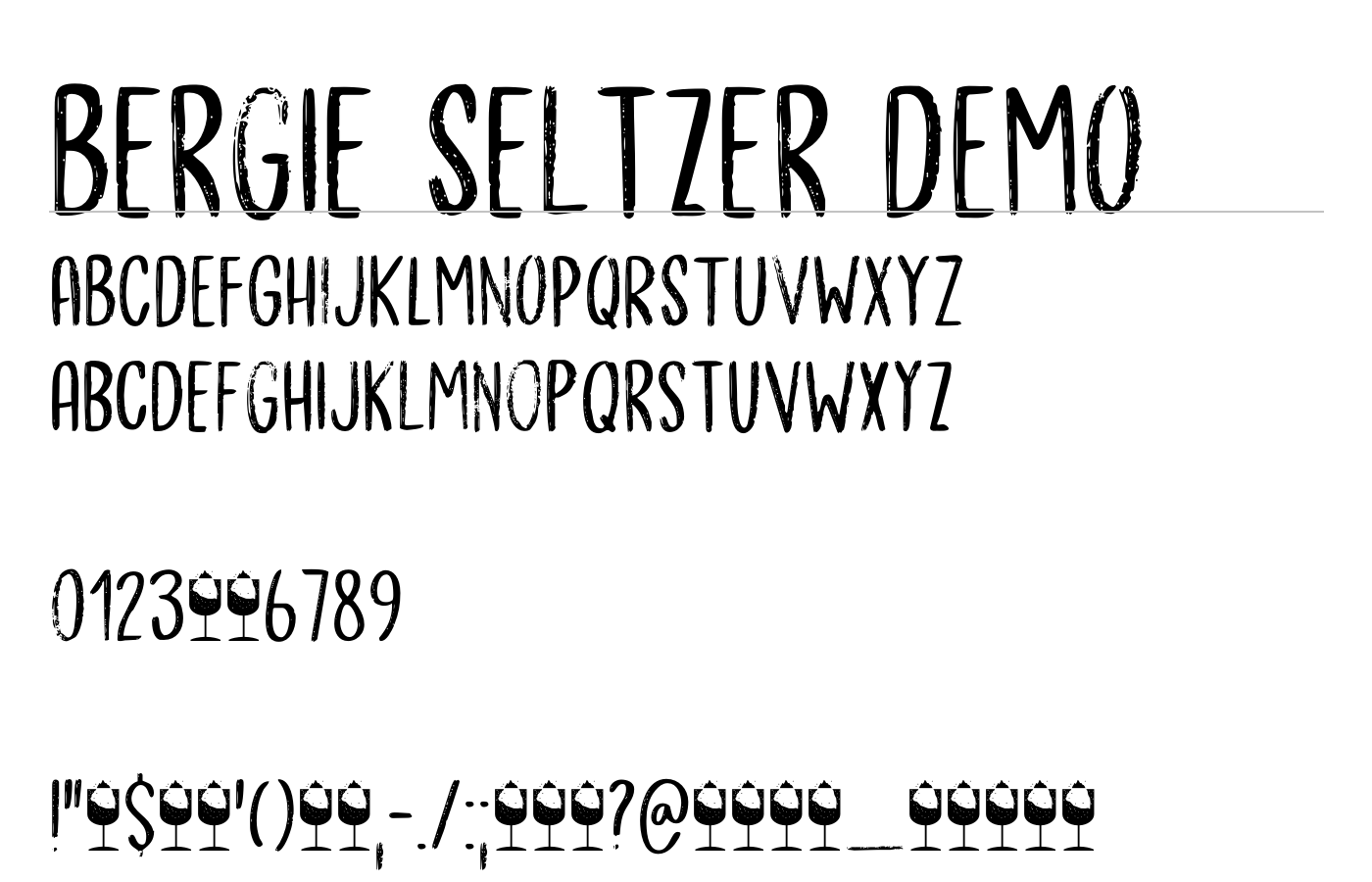
Bergie Seltzer DEMO is a playful, hand-drawn sans serif font with a tall, narrow structure and textured, uneven strokes that give it a casual, lively feel. Its uppercase letters feature slight grunge detailing, adding character while maintaining legibility, making it ideal for fun, informal designs like party invitations, posters, or branding that seeks a youthful, energetic vibe. This font’s quirky personality works best in headlines and display use where a creative, approachable tone is desired.
Bergie Seltzer DEMO Font
About Bergie Seltzer DEMO Font